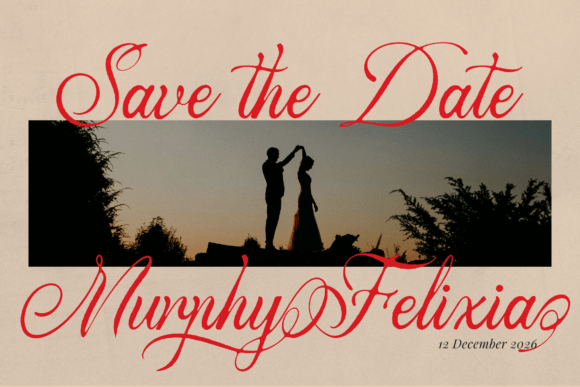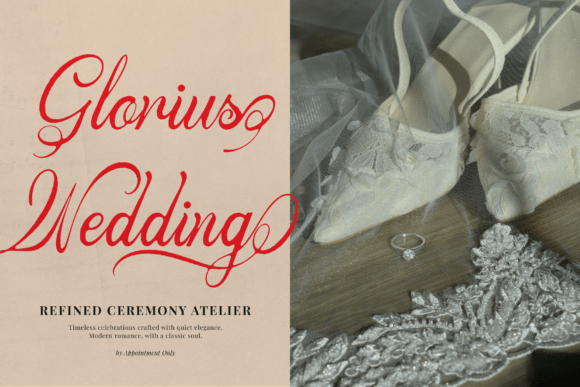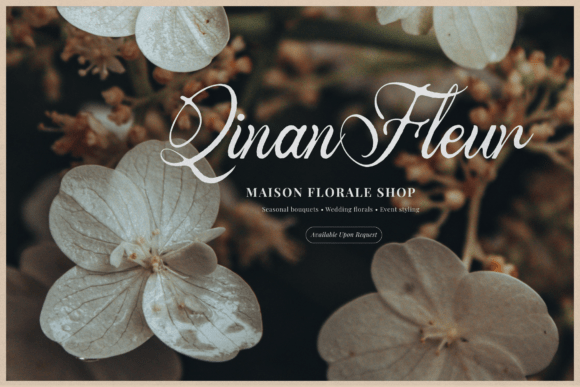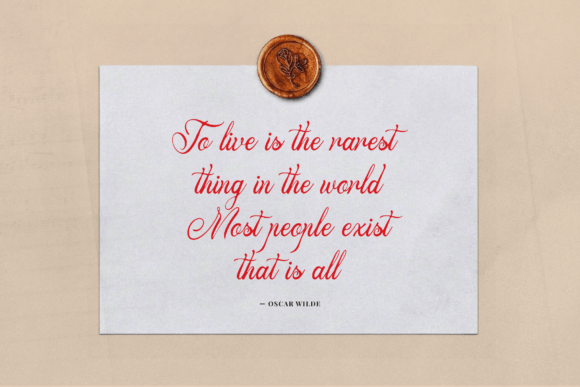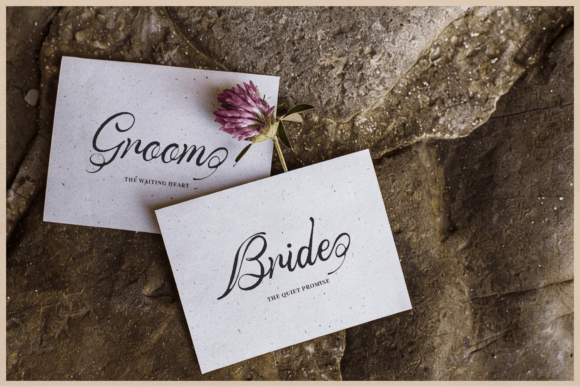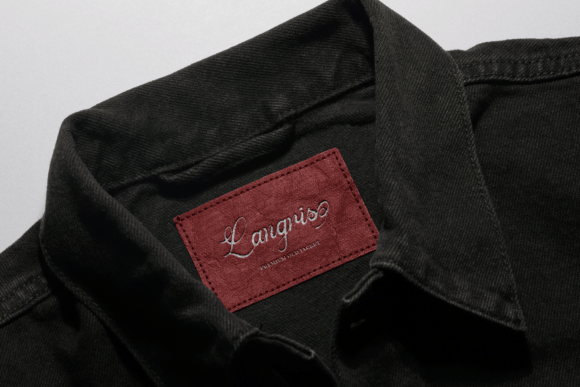
Introduction to Howtaly Font
Discover the art of sophisticated penmanship with Howtaly, an elegant vintage script designed for high-impact visual storytelling.
Howtaly is an exceptional choice for luxury branding, bespoke wedding stationery, high-end editorial headers, and chic fashion logos Whether you are crafting a logo for a premium boutique or a standout title, this font delivers a sense of polished prestige and timeless beauty to your visual communication.
Key Features of Howtaly Font